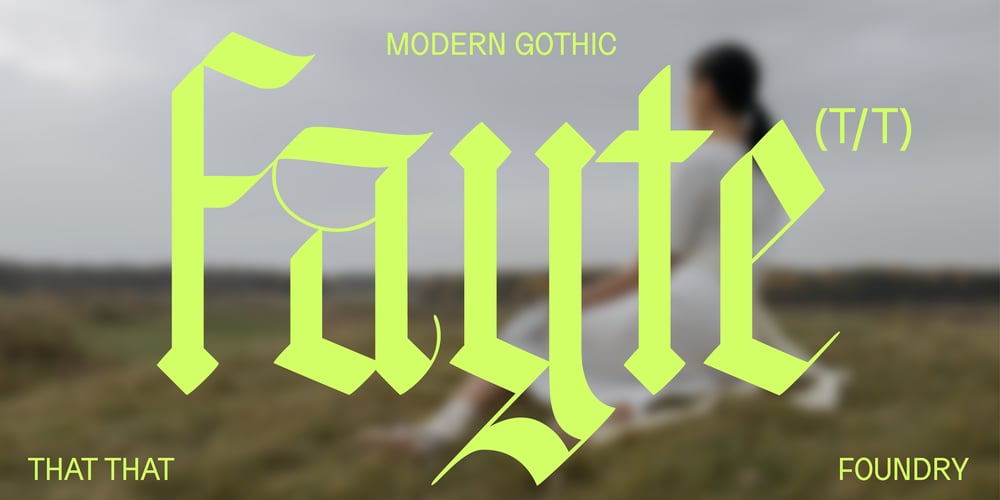
Fayte
Fayte Font Family was designed by Harbor Bickmore and published by That That Creative. Fayte contains 1 styles and family package options. Fayte is a modern blackletter font that gives focus on contemporary display type. This vintage-made new typeface is unmistakably blackletter, However, it is accessible enough to be used across many projects, for branding, Instagram, print posters, magazines, Fashion, whatever.